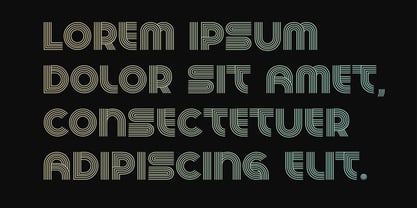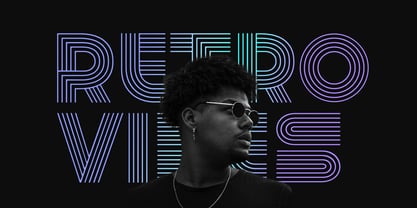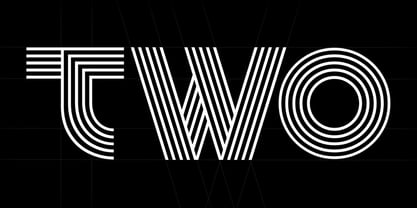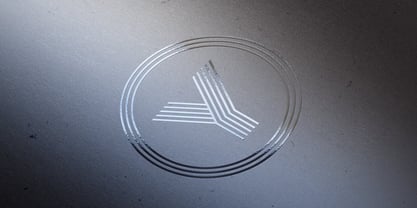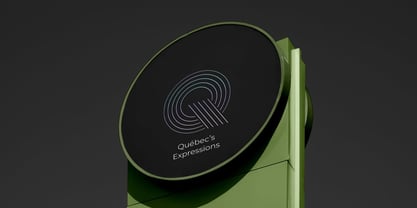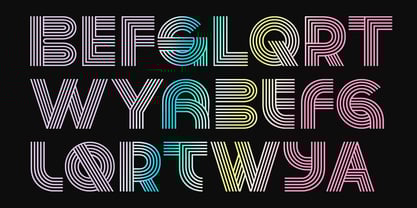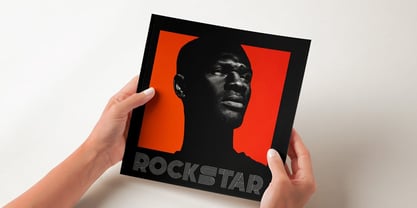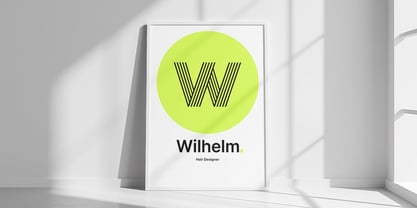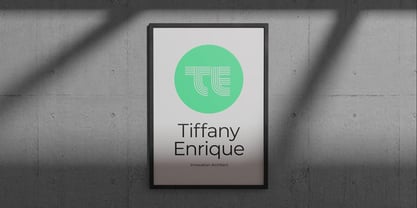
Two Display
by Webhance
The Two Display Font Family was designed by Alwin Johnson and published by Webhance. Two Display contains 1 styles.
Introducing "Two," a carefully crafted logo font designed to enhance your brand identity with elegance and versatility. Perfect for a wide range of applications, "Two" seamlessly blends style and functionality, making it an essential choice for modern design projects.
Each character in "Two" is designed with precision to offer a refined and distinctive appearance, enhancing the visual appeal of your work. Specifically tailored for logos, "Two" combines modern aesthetics with exceptional readability, ensuring your brand stands out. Additionally, "Two" provides designers with the flexibility to explore and innovate, making each logo a true representation of creativity. "Two" is an excellent choice for various design needs, including Instagram posts, business posters, logos, modern branding, YouTube thumbnails, print designs, package designs, and film posters. It serves as a versatile Instagram font that enhances the visual impact of your social media content and branding materials.
Designers: Alwin Johnson
Publisher: Webhance
Foundry: Webhance
Design Owner: Webhance